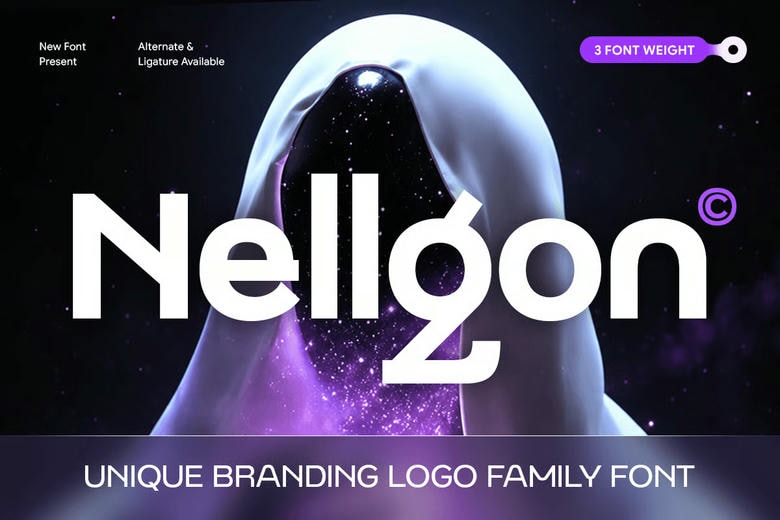
Nellgon Font
Nellgon is a branding logo family font that brings creativity, versatility, and a strong visual identity to your work. With its refined letterforms, balanced proportions, and modern look, Nellgon works well for logos, brand identities, packaging, editorials, and other creative projects.
Nellgon blends stylish typography with a professional look, helping brands stand out with a memorable and polished style. Its flexible family design makes it easy to use in many settings, while keeping readability and a unique feel. This makes it a great choice for agencies, startups, premium brands, and creative studios.
Nellgon Logo Font